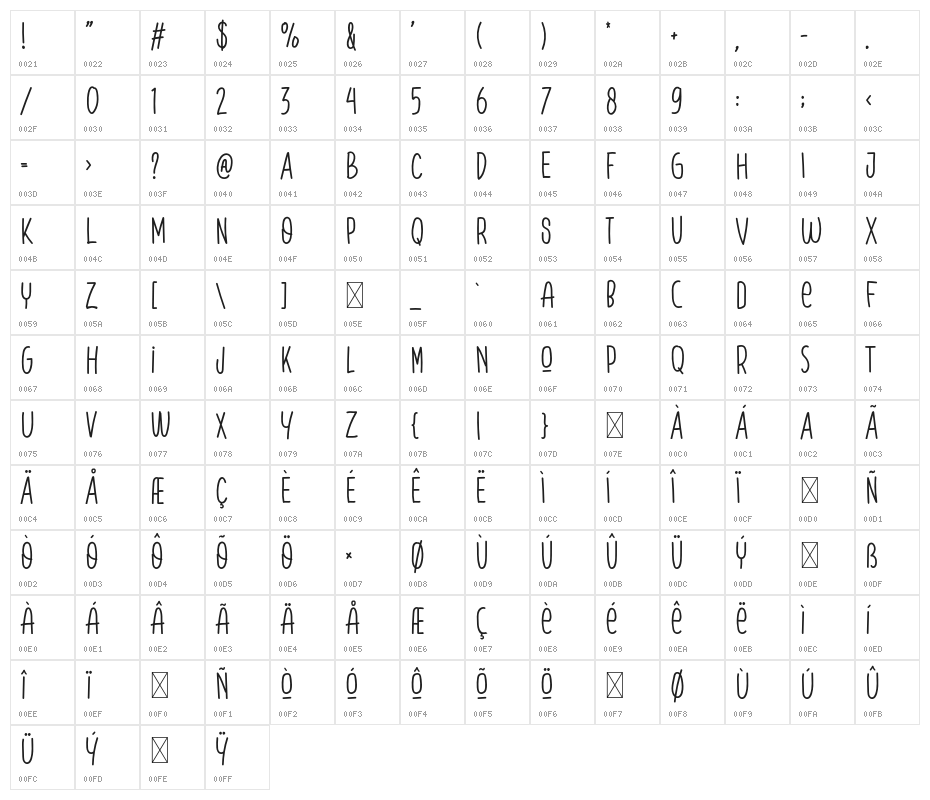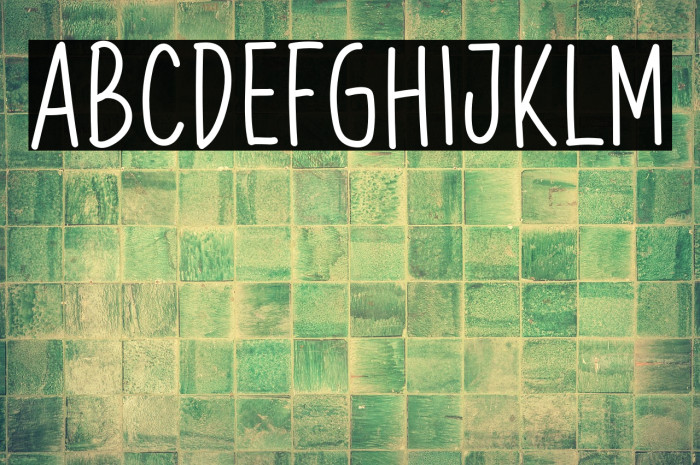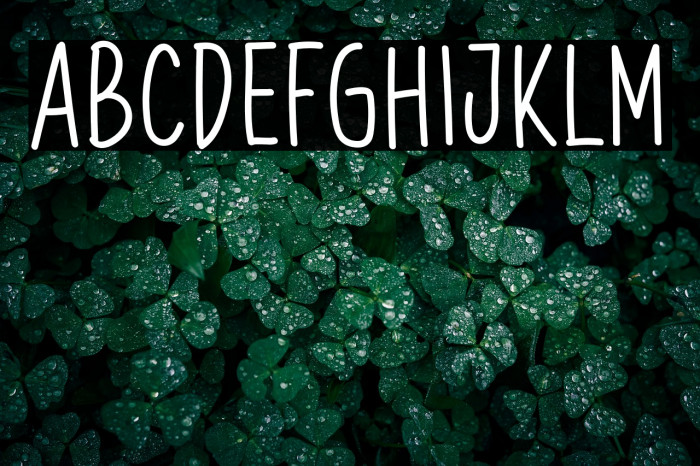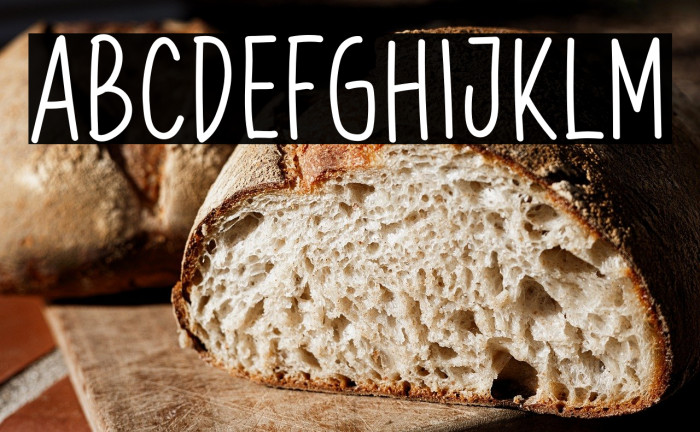
OrangeSyrup Font
| Stile generale | Modern, Decorative |
| Caso d'uso | Headlines, Logos, Informal Text |
| Progetti proposti | Ideal for greeting cards, children's books, playful branding, and social media graphics. |